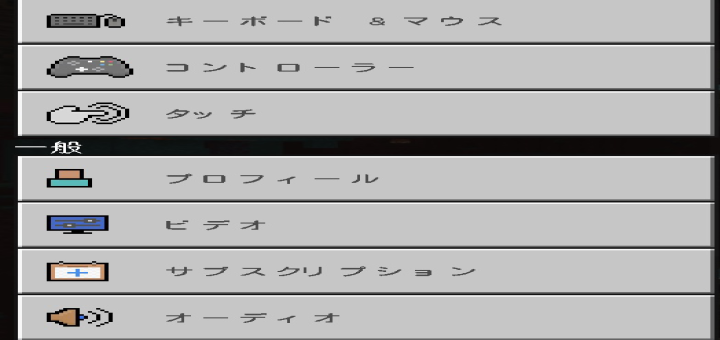
Are you tired of the tiny, pixelated Unicode Font? Many Minecraft Players are tired of this font which feels foreign. Then this texture pack is for you! This texture pack strives to made Minecraft Text rounded but still feel somewhat “Minecrafty“. In other words, the font will be familiar but easy on the eyes.
So far, only the fullwidth Hiragana and Katakana characters have been made into this texture pack. The Hiragana and Katakana syllabaries (these aren’t alphabets) are used with Japanese, Ryukyuan, and Ainu. For the latter two if you have any addons which add those languages in. This resource pack does nothing else at the moment.